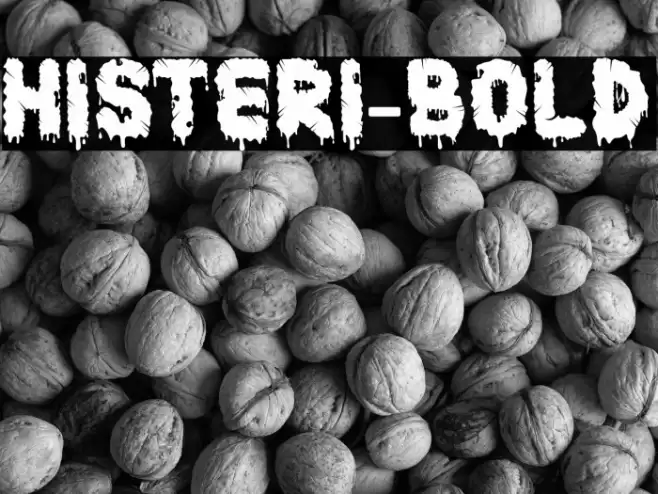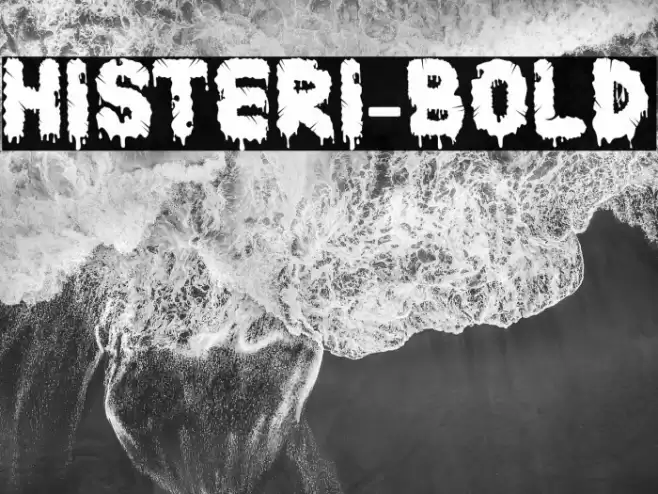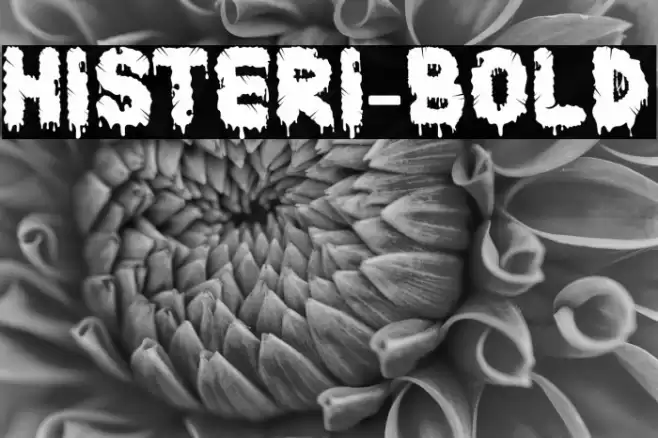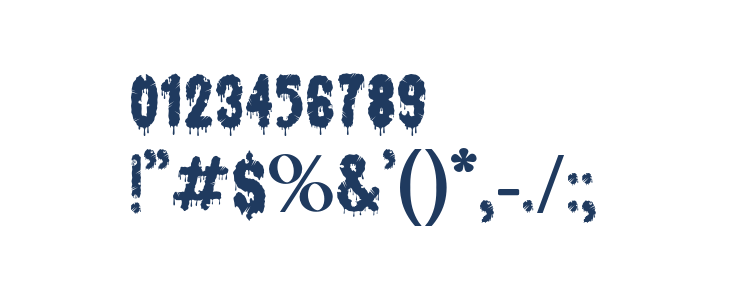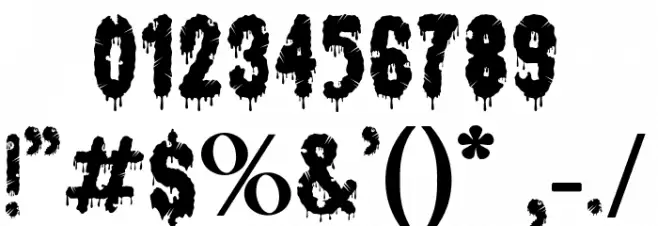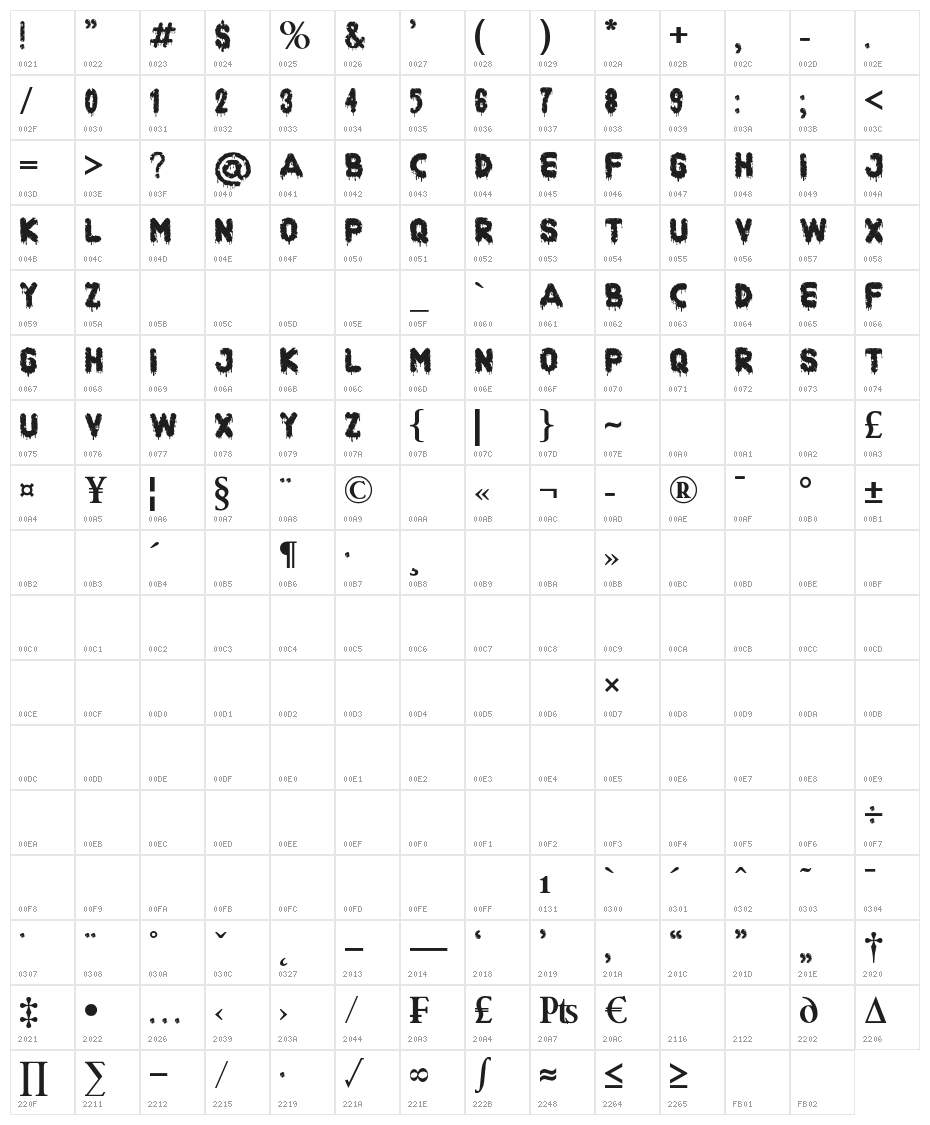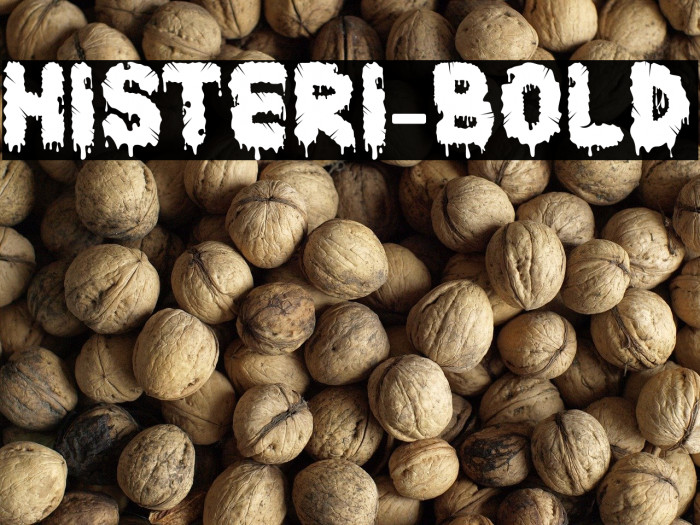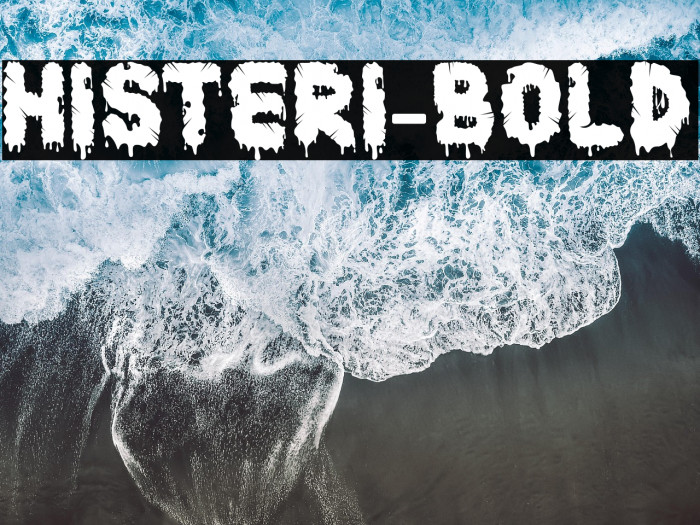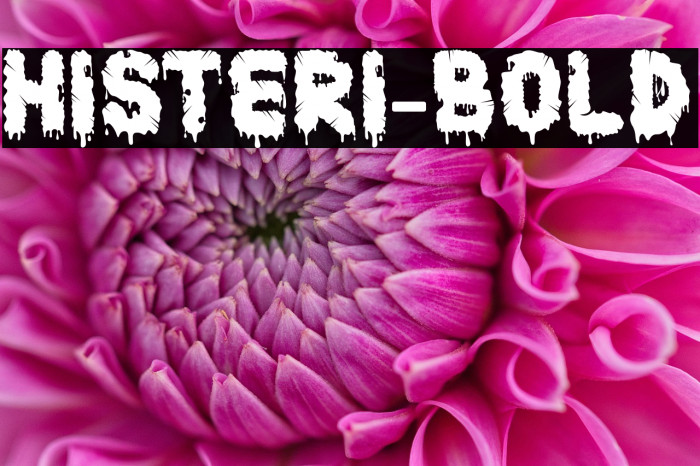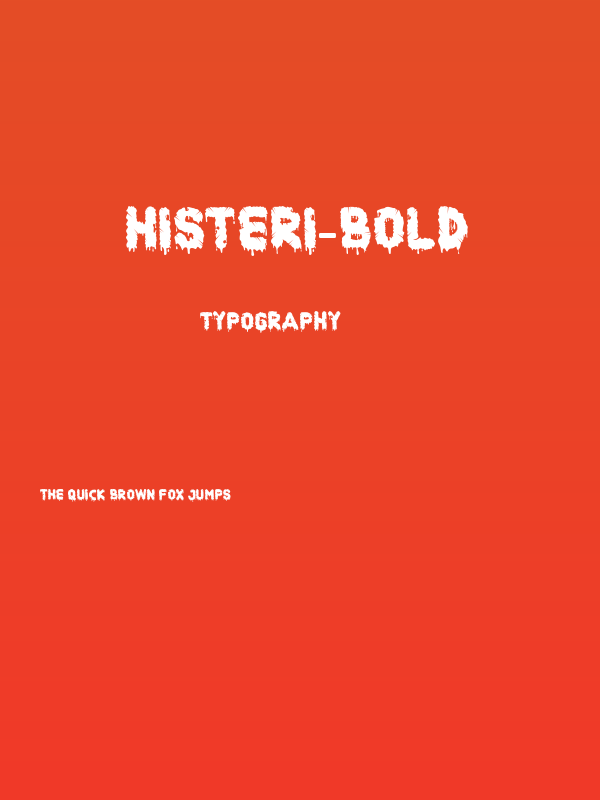
This font features a bold, dramatic style with a dripping effect that gives it a unique, horror-themed appearance. The characters are heavily stylized, with thick strokes and irregular edges that mimic the look of melting or dripping liquid. This design choice creates a sense of movement and chaos, making it perfect for projects that require a striking and memorable visual impact. The uppercase and lowercase letters maintain a consistent style, ensuring readability while still embracing the font's distinctive aesthetic. Numbers and special characters are also included, each following the same dripping motif, which adds to the overall cohesiveness of the font.
A bold, dripping font with a horror-themed, dramatic style from Uncategorized fonts.
- Proposed Projects: Ideal for Halloween-themed designs, horror movie posters, spooky invitations, and any project needing a dramatic, eye-catching font.